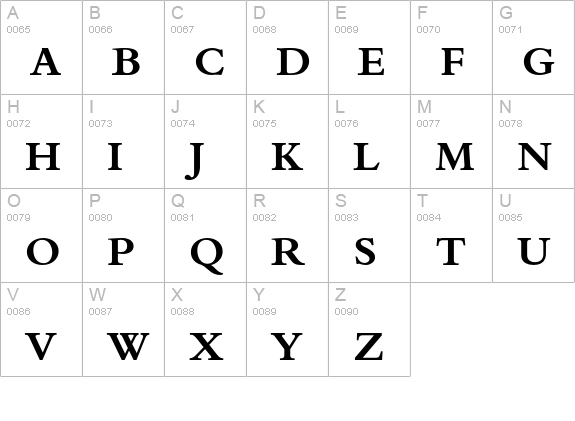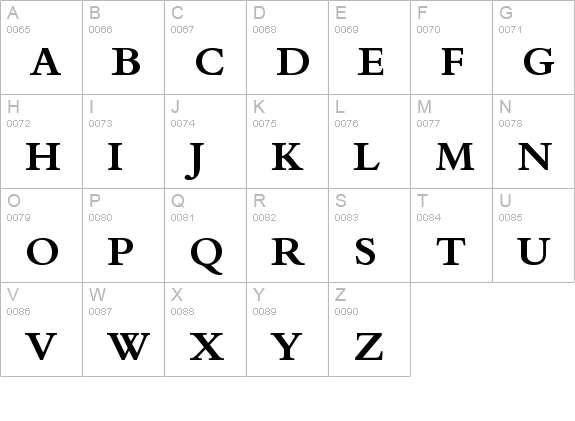
Bergamo Std Bold Font Details
Bergamo Std Bold is a strong, high-contrast variant in the Bergamo typeface family \xE2\x80\x94 well suited to headlines, attention-grabbing titles, and strong calls-to-action.
Bergamo Std Bold is a striking and modern font that exudes confidence and strength. Its bold weight commands attention and makes a powerful statement in any design project. The clean lines and sharp edges of Bergamo Std Bold give it a contemporary and professional look, perfect for headlines, logos, and branding materials. What sets Bergamo Std Bold apart is that it is not only visually impactful but also freely available for download at FontsMarket.com. This means that you can easily access this versatile font for your creative projects without any cost. Whether you're working on a print design, website, or any other project, Bergamo Std Bold is a reliable choice that will elevate your work with its bold and impactful presence. Download Bergamo Std Bold today and add a touch of modern sophistication to your designs.